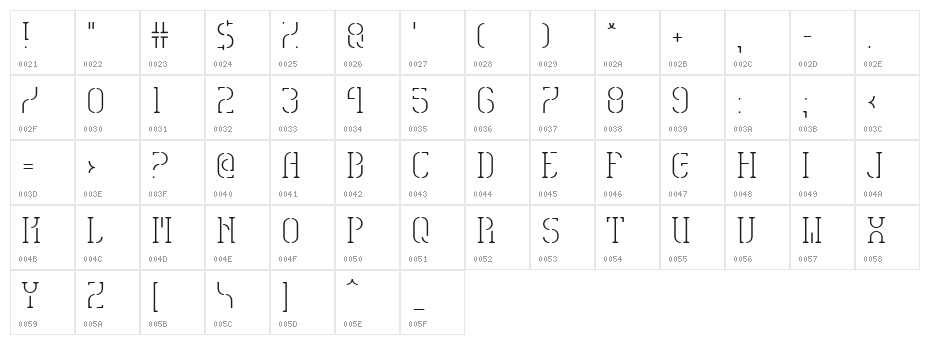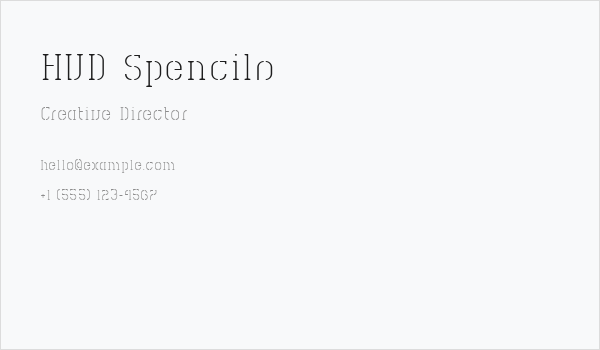
HVD Spencils Font
HVD Spencils Description
This font features a unique stencil-like design with clean, geometric lines and open spaces within the characters. The uppercase and lowercase letters maintain a consistent style, with a modern and industrial feel. The numerals and special characters follow the same design principles, making the font cohesive and versatile. Its distinct cut-out sections provide a sense of lightness and modernity, while the overall structure remains bold and impactful. This font is ideal for projects that require a contemporary and edgy look, such as branding, posters, and packaging.